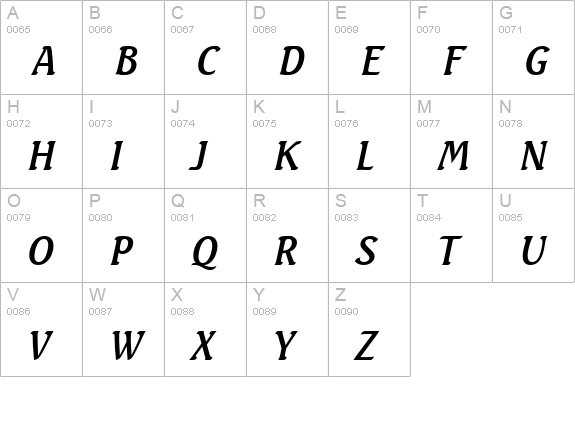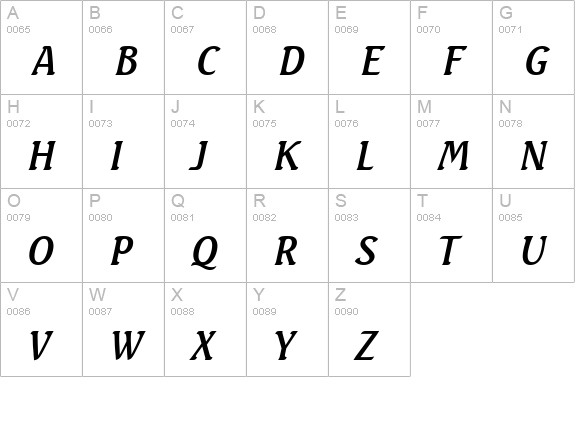
Beach Italic Font Details
Beach Italic is a distinctive, italic variant in the Beach typeface family \xE2\x80\x94 well suited to design and typography projects.
Introducing Beach Italic font, a sleek and stylish typeface perfect for adding a touch of elegance to your designs. With its graceful curves and modern aesthetic, Beach Italic is ideal for a wide range of projects, from branding to invitations to web design. This versatile font is now available for free download at FontsMarket.com, making it accessible to designers and creatives looking to elevate their work without breaking the bank. Whether you're working on a business card, a website, or a poster, Beach Italic is sure to make a statement and leave a lasting impression. Don't miss out on this incredible opportunity to enhance your projects with the beautiful Beach Italic font. Download it for free today at FontsMarket.com and let your creativity shine!